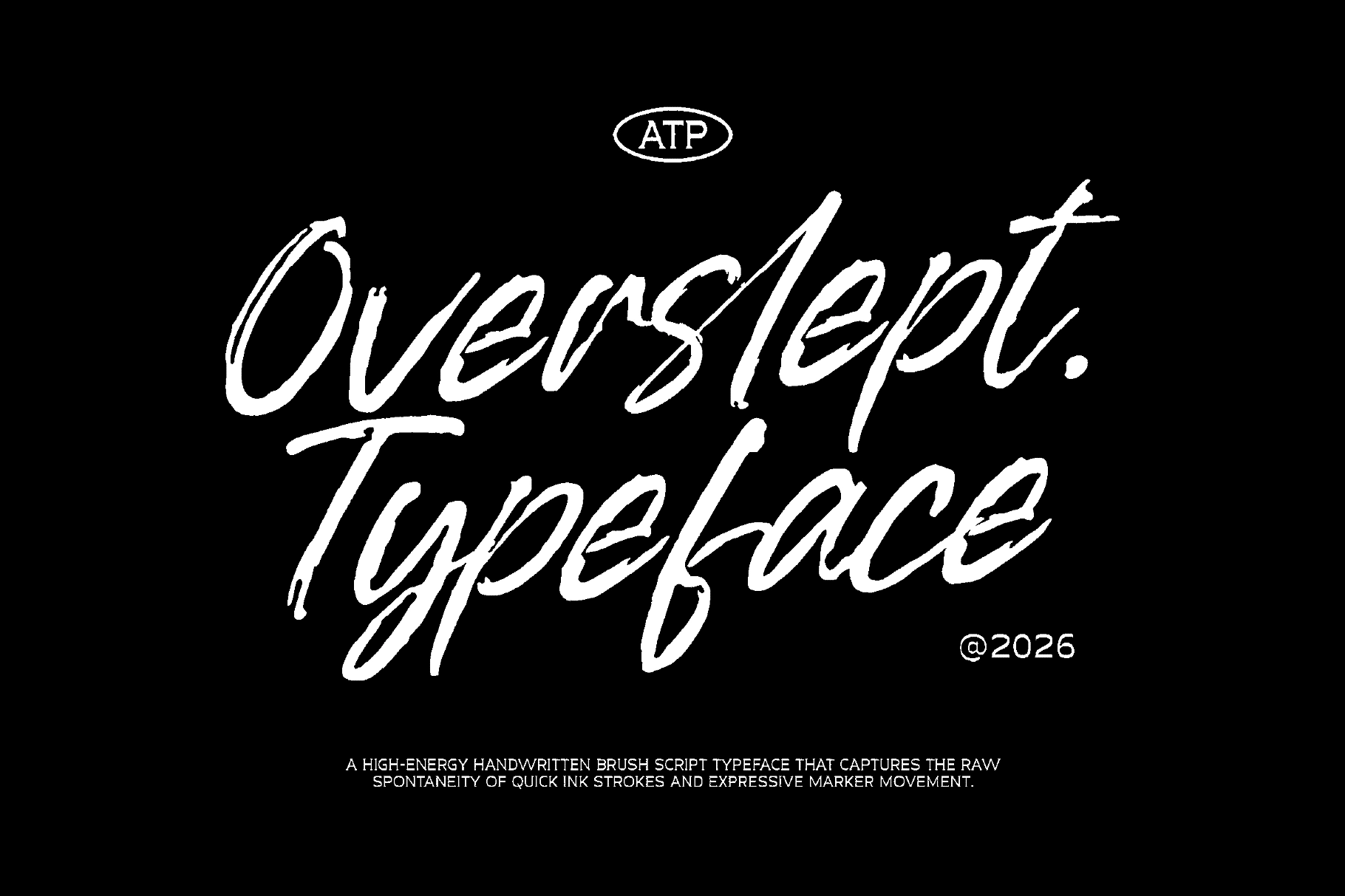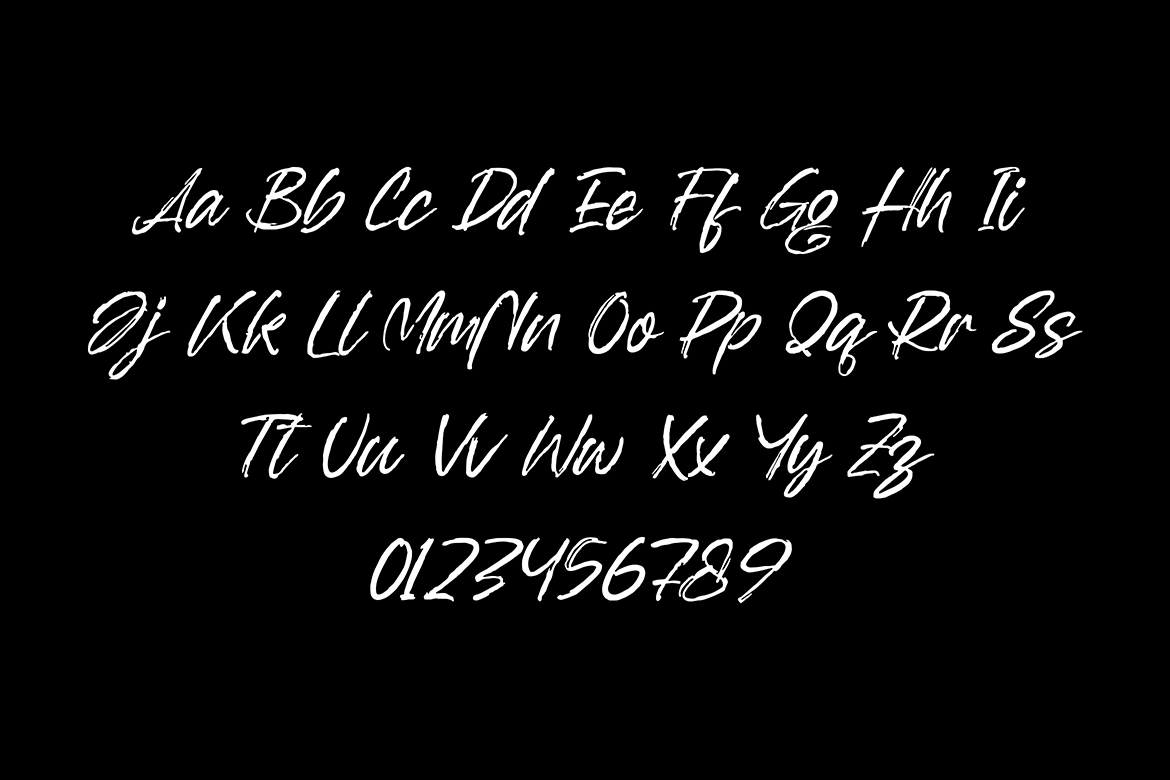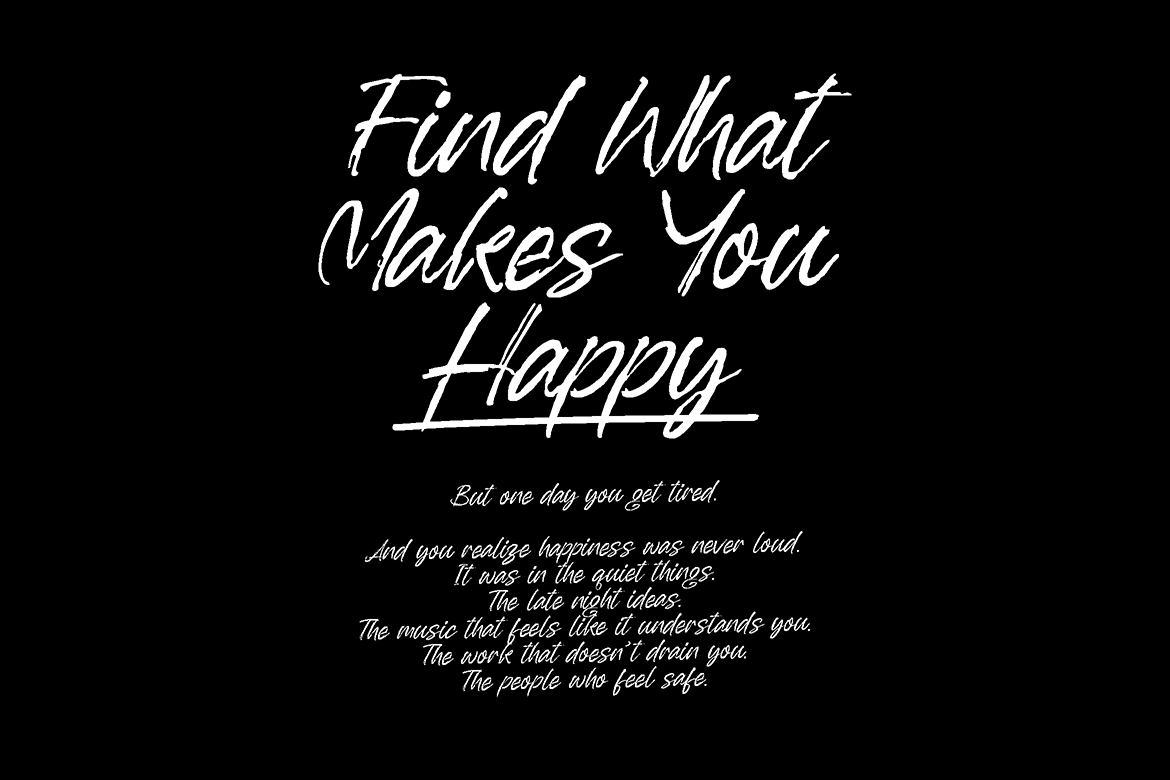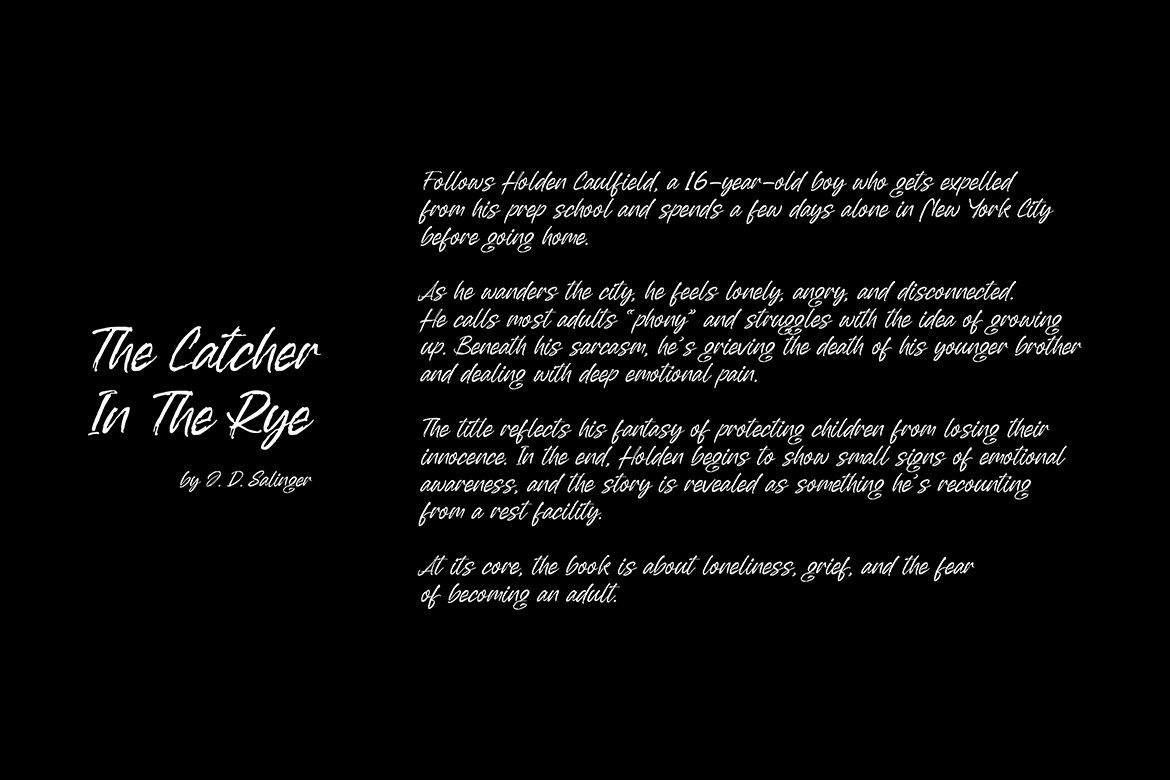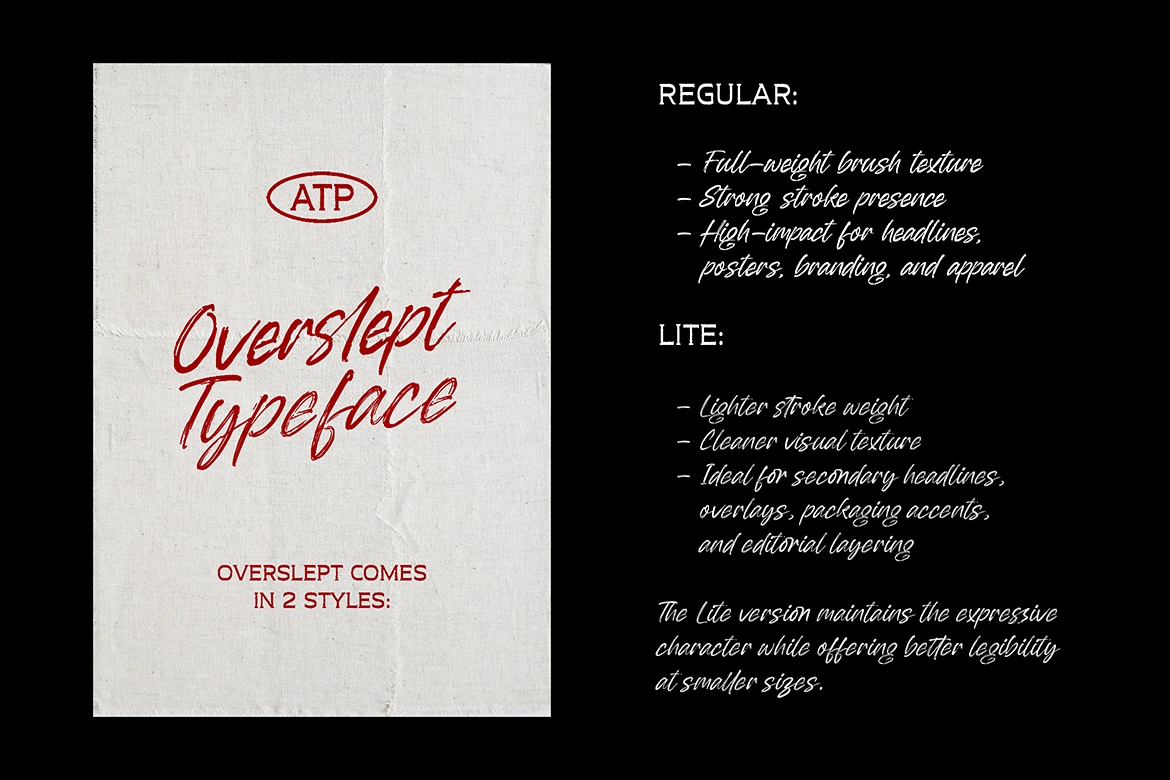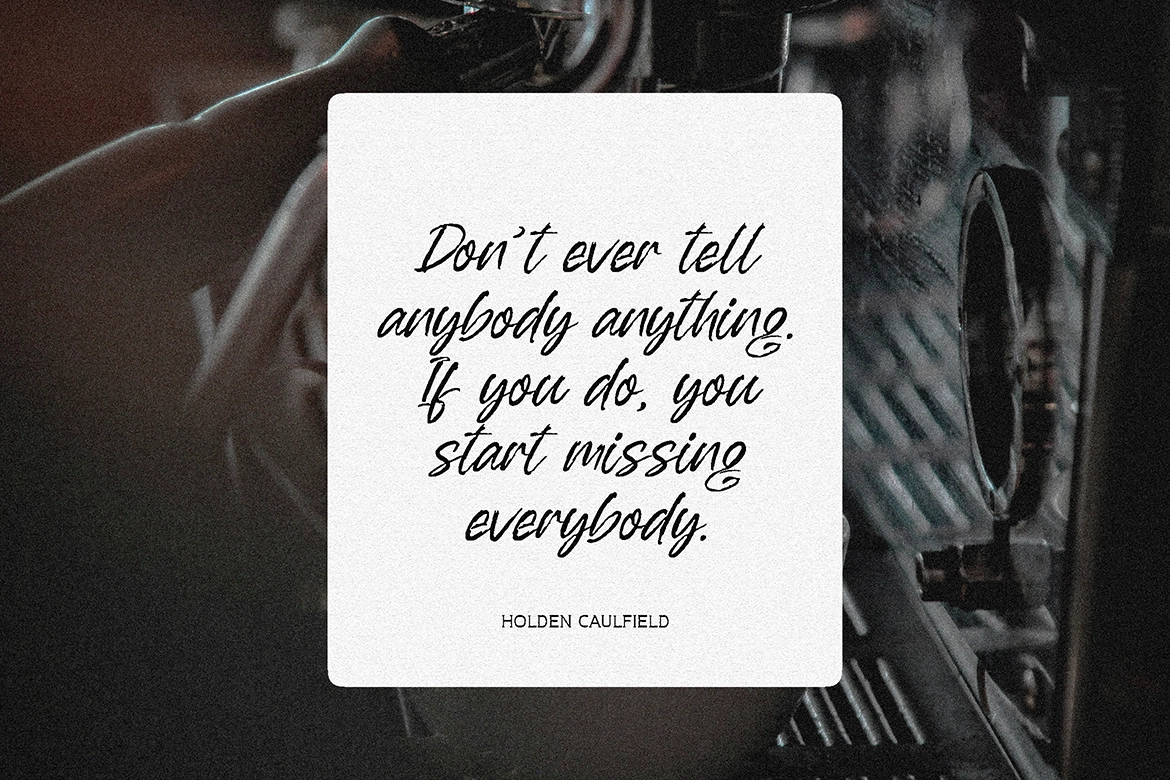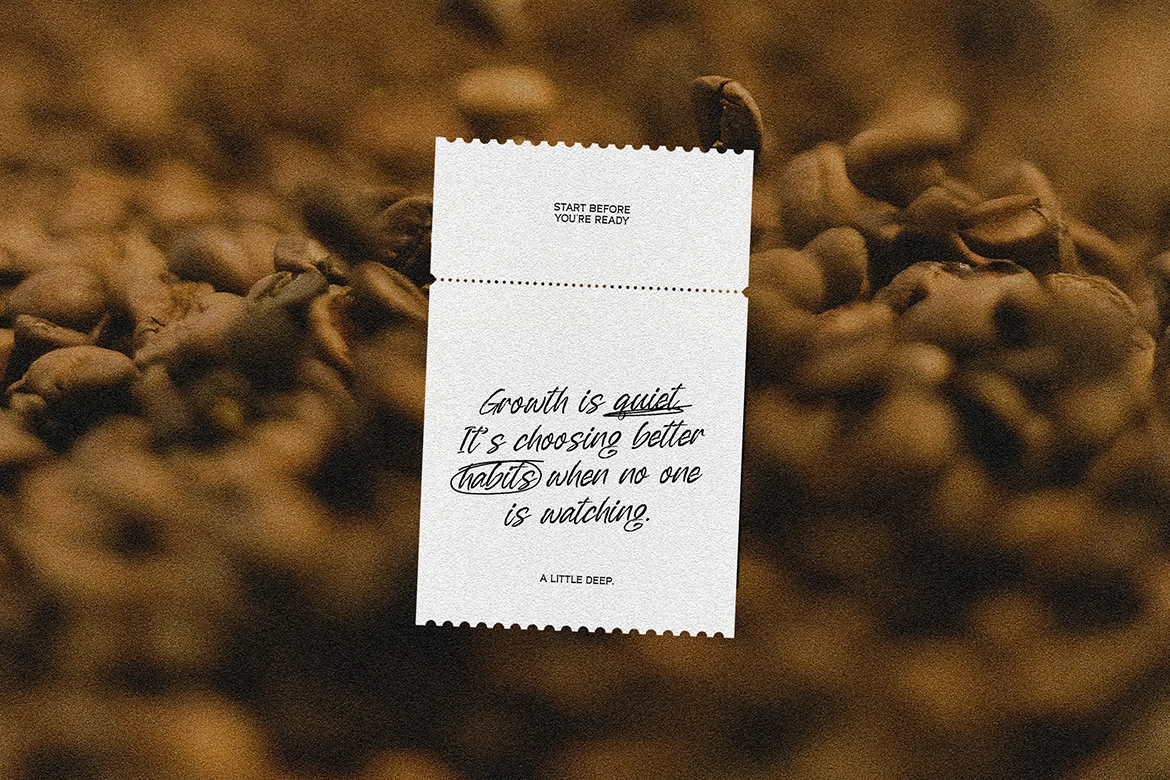
OverSlept - Handwritten Brush Script Font
This brush script is bold, restless, and sharply expressive, with quick ink strokes, rough edges, and strong pressure contrast. Its handwritten energy gives headlines a raw, personal charge while the letter shapes are controlled enough for confident display use.
OverSlept works well for music artwork, streetwear graphics, poster titles, expressive branding, merch prints, social media quotes, book covers, zines, packaging accents, event flyers, editorial layouts, and apparel tags. The Regular style brings heavier impact for main titles, while Lite is cleaner and better suited to supporting text, overlays, and smaller compositions.